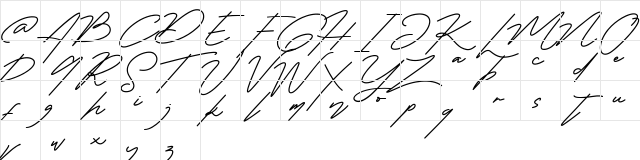
Marlies Regular Free Font
Marlies Regular
Foundry: Dikas Studio
Designer: Andika Setiawan & Afiffah Widya
Design Context for Marlies
Marlies is a composed and adaptable typeface that performs quietly and consistently across a wide range of design contexts.